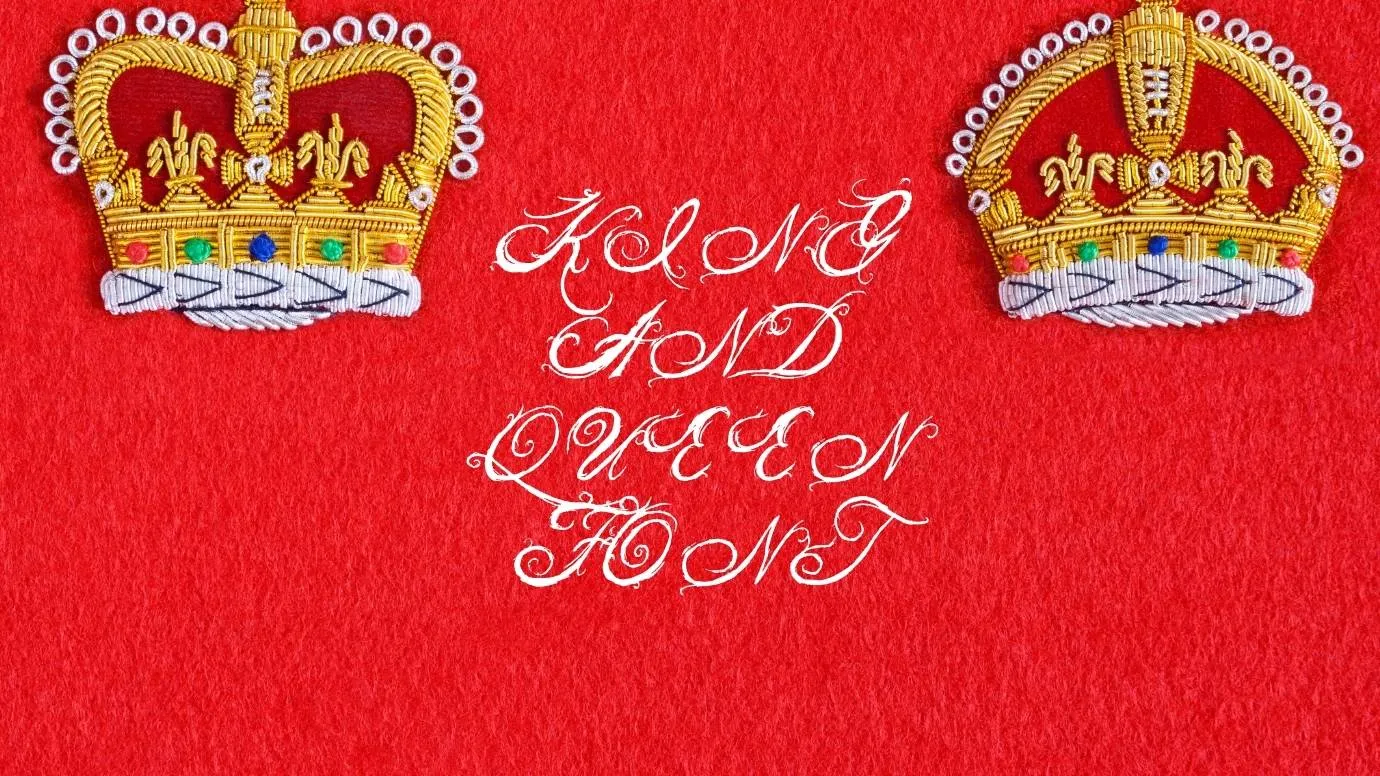
Font Introduction
King And Queen Font Family is one of the most stylish calligraphy fonts that are perfect to go with some other typefaces for vintage designs like marketing, logos, and quotes. This font has one regular weight that comprises a complete set of 656 characters including uppercase, lowercase, numbers, basic punctuations, multiple language supports including Latin and Cyrillic characters, many alternates, ligatures, currency symbols, updated icons, OpenType, and TrueType features.
Features of King and Queen Font
- Due to its unique stylish look and great legibility, it is a perfect font creating your astonishing designs such as Logo designs, Business cards, T-shirt and Mug designs, Stationeries, Art designs, Vintage designs as well as Branding projects, Product packaging, Social Media posts and so on.
- This font is also very suitable for your text designs and you can create wonderful headlines and titles with the help of this typeface.
- YouTubers can also apply this font for their eye-catching thumbnails and some channel art designs and also quotes, content, post descriptions, and so on.
Details of Font
Name | King and Queen Font |
Designer | Bran |
Style | Calligraphy |
What is the closest font to the King and Queen Font?
If you are looking for the most similar font to this typeface then choose Berthusen Font because the styling of this font is very close to the King and Queen Font.
Who created King and Queen Font?
This is stylish calligraphy font was designed and shared by Bran. It was initially released in the year of 2007 by a notable typeface foundry.